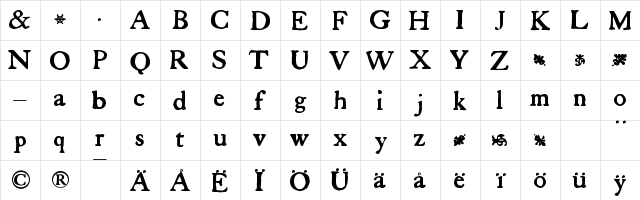
Tuer's Cardboard Regular
| Designer | Staffan Vilcans |
Design Context for Tuer's Cardboard Typeface
Tuer's Cardboard takes a measured approach to typography — its balanced proportions and neutral character make it a reliable workhorse for both digital and print work.